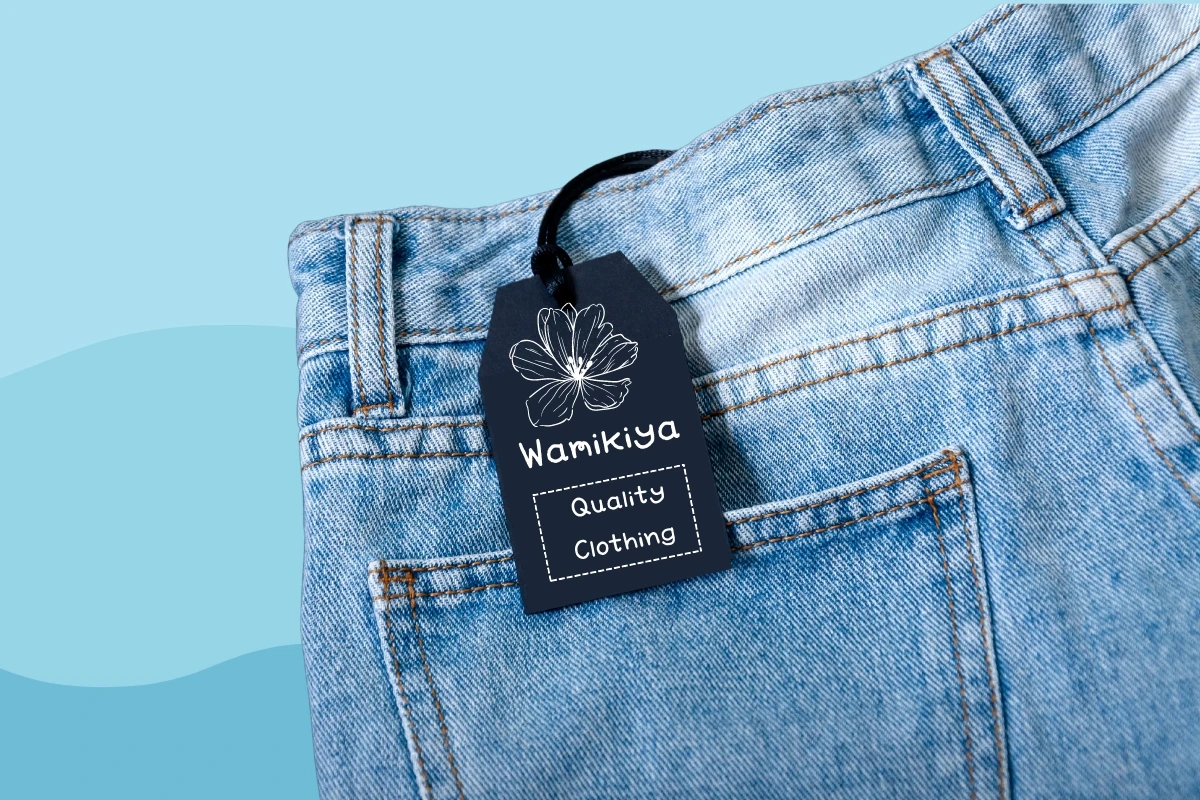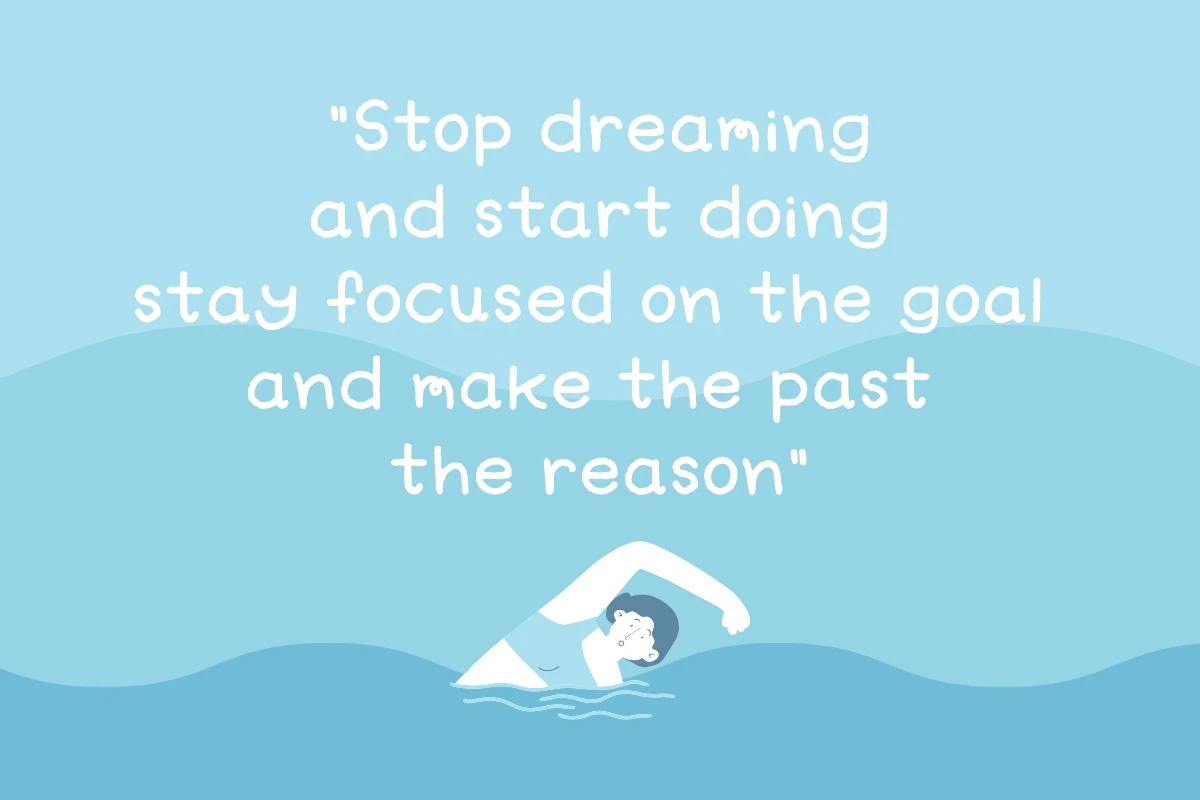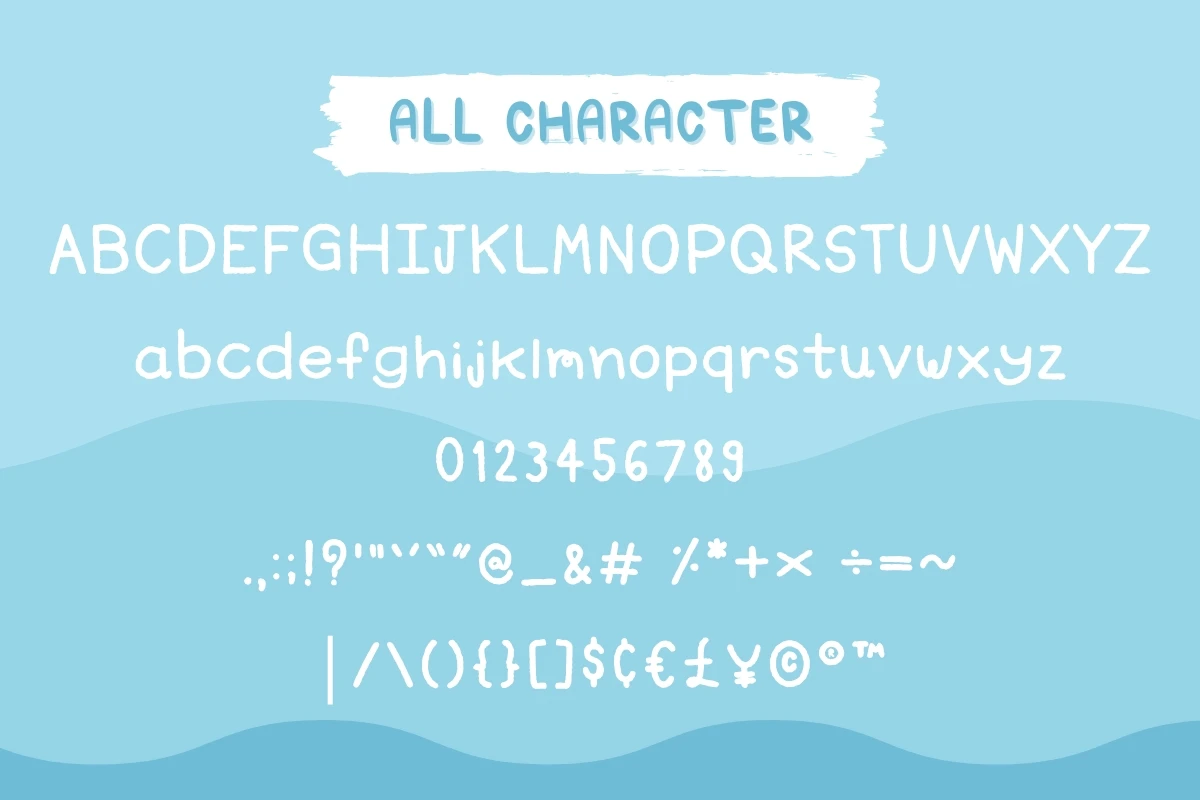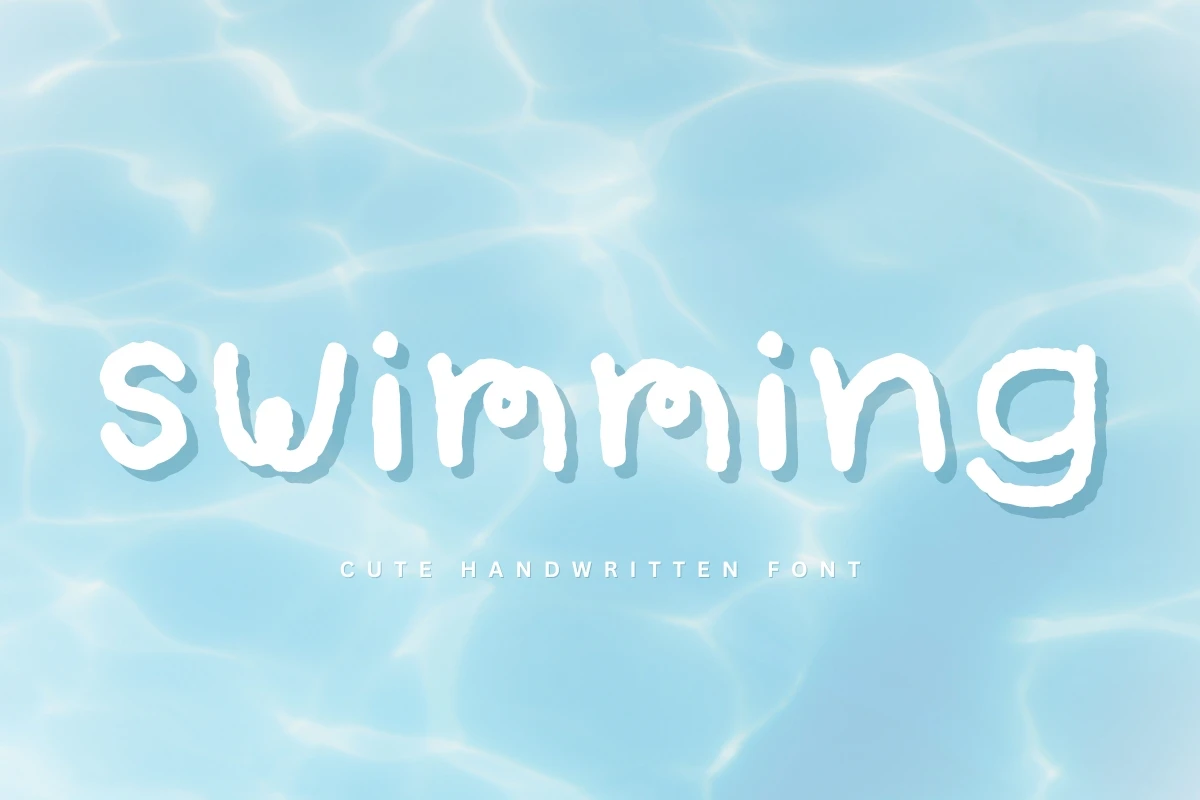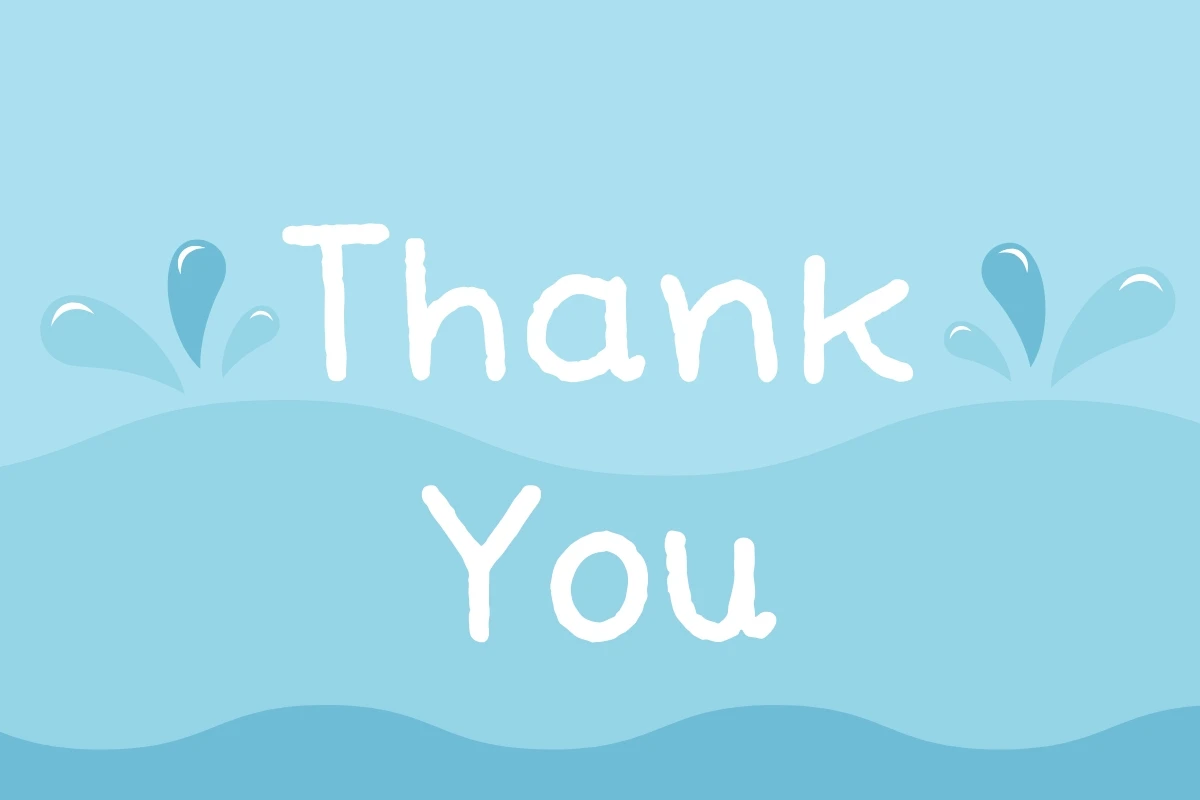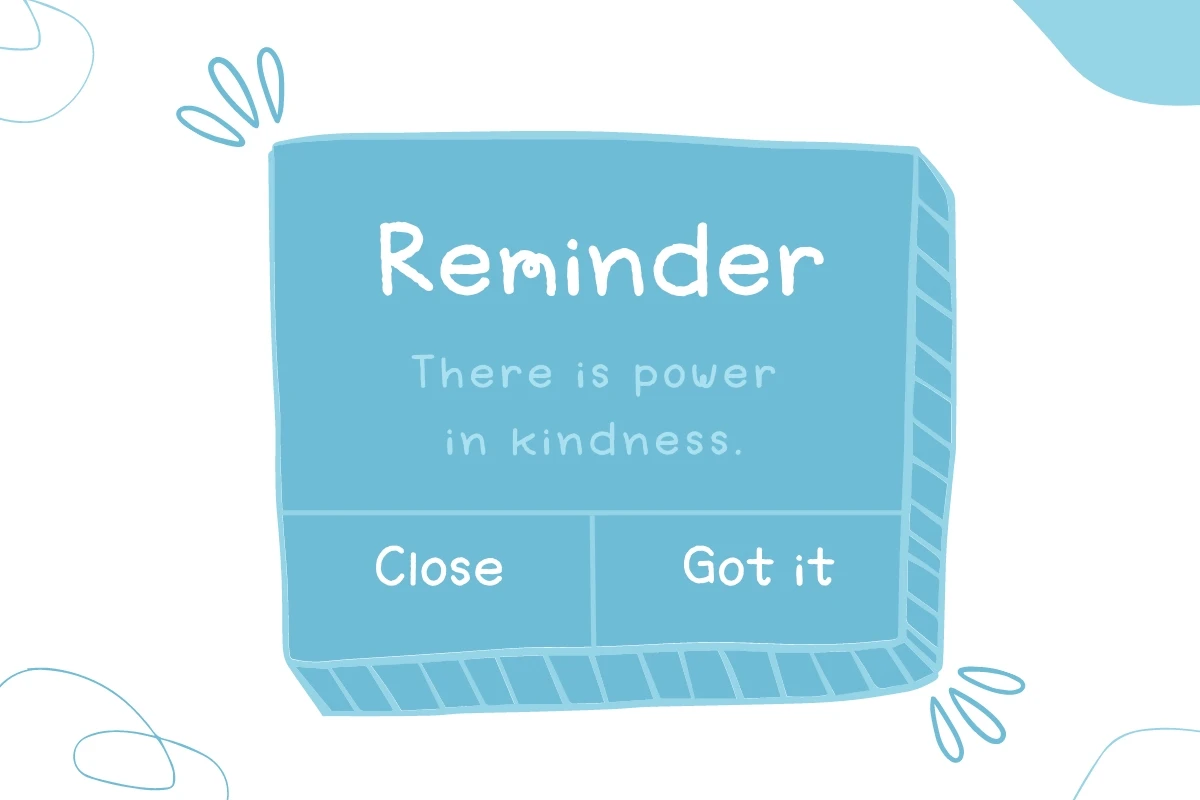
Swimming is an attractive and cute sans-serif font that is the perfect blend of playfulness and simplicity. With a clean and modern design and whimsical touches that add a touch of fun, this font is perfect for childrents books, branding, and other projects that require a lighthearted and charming touch.